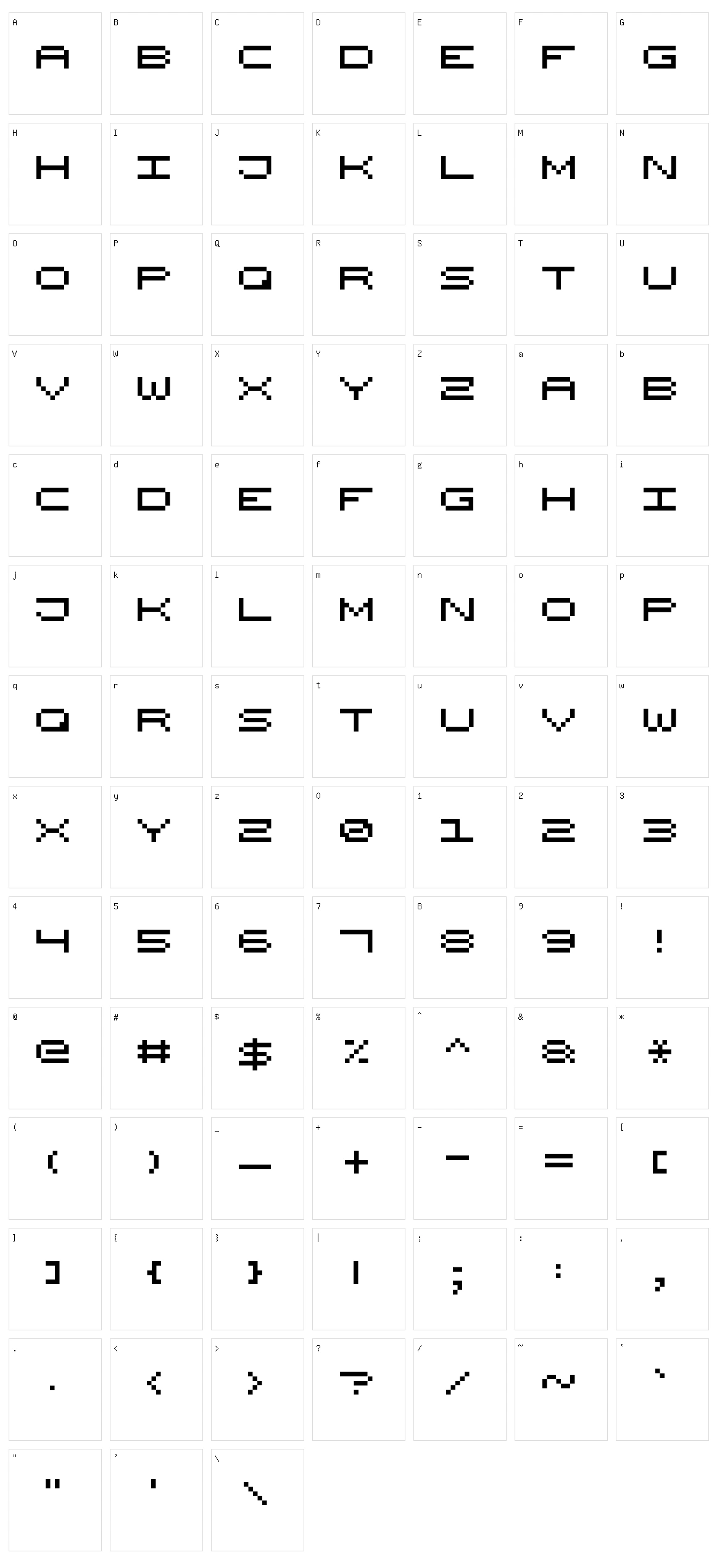
Wide Pixel-7
Designed by: Style-7
Original wide pixel font. Size of base symbol is 7*5 pixels. Latin and Cyrillic code pages are supported.
Sizenko Alexander
Style-7